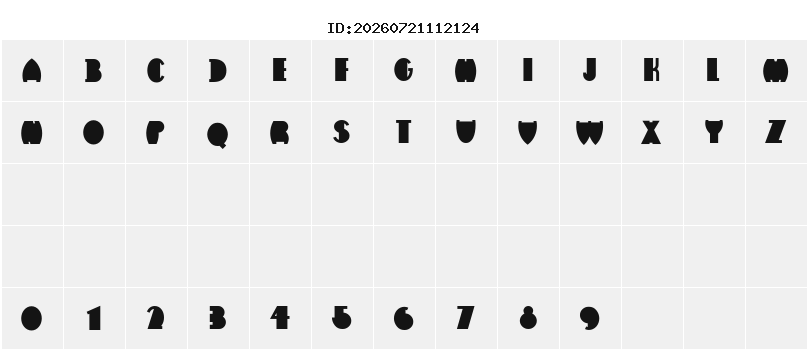
Flatiron Preview
• Font Name: Flatiron
• Full Font Name: Flatiron
• PostScript Name: Flatiron
About Flatiron.ttf
Flatiron.ttf is a modern, elegant sans-serif font designed for ultimate readability and visual harmony. Perfect for branding, headlines, web design, and print materials.